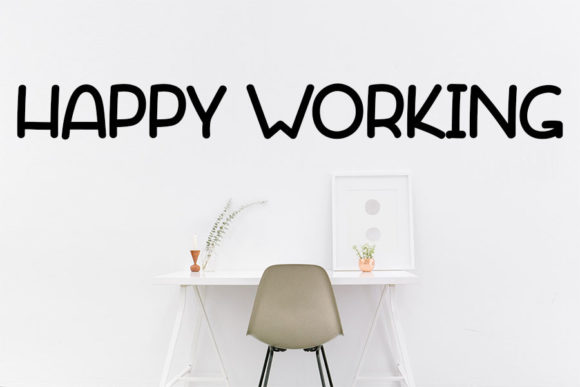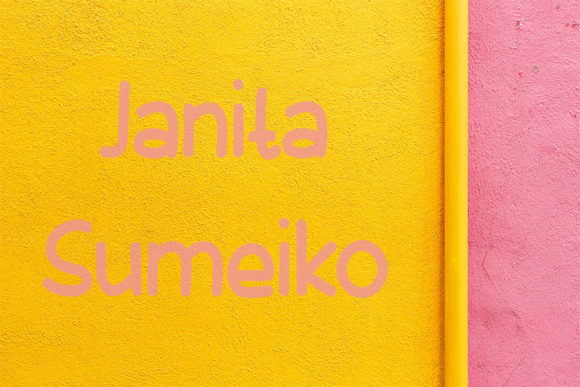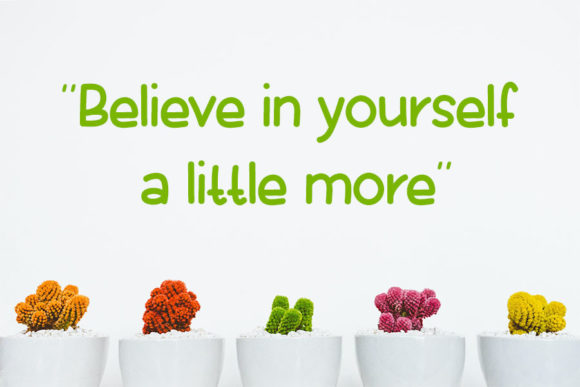
The Perfect Brushstroke for Your Next Design
Have you ever sat in front of a blank canvas, staring at a blank page, and thought, ‘This is the moment when creativity strikes’? The world of design is full of those magical moments, where the right font can make all the difference. For designers, finding the perfect font can be the key to unlocking a new idea, a fresh perspective, or a bold statement.
That’s where the Gestapu Font comes in – a sweet and friendly handwritten font that’s as versatile as it is charming. With its natural and unique style, Gestapu Font is the perfect companion for any design project, from branding to advertising, and everything in between. Its friendly vibe makes it incredibly fitting to a wide range of designs, limited only by your imagination.
Gestapu Font Key Features
- Font Family: Gestapu Font is a sans-serif font family designed for digital use.
- Character Set: Supports a wide range of languages, including Latin, Cyrillic, and Greek scripts.
- Unique Characteristics: Gestapu Font features a clean, modern design with a unique blend of geometric and organic shapes, making it ideal for digital and print applications.
Gestapu Font Review
Gestapu Font is a unique, sans-serif typeface that aims to capture the essence of a 1965 coup in Indonesia. Upon initial inspection, I appreciate its ✨ clean lines and geometric shapes, which give it a modern and minimalist feel. The font’s simplicity makes it a great choice for digital interfaces and minimalist designs.
However, I do have some concerns about the font’s versatility ⚠️. While it excels in certain contexts, its simplicity can also make it feel sterile and lacking in character. Additionally, the font’s limited glyph set may not be suitable for more complex designs or languages that require a wider range of characters.
What I Like:
- ✨ Clean and modern aesthetic
- ✨ Simple and easy to read
- ✨ Great for digital interfaces and minimalist designs
What I Don’t Like:
- ⚠️ Limited glyph set
- ⚠️ May feel sterile or lacking in character
- ⚠️ Not suitable for complex designs or languages with limited character sets
Overall, Gestapu Font is a solid choice for designers looking for a clean and modern sans-serif typeface. However, it’s essential to consider the font’s limitations and potential drawbacks before deciding to use it in your design projects.
The Gestapu Font is suitable for a variety of use cases, including:
- Typography-based designs
- Branding and logos Alternatives to Gestapu Font
Open Sans is a modern sans-serif font designed by Steve Matteson. It is highly legible and works well for body text. Use it for long-form content, such as articles or blog posts. Open Sans is more rounded and friendly compared to Gestapu Font, which is more geometric and sleek.
2. Montserrat
Montserrat is a sans-serif font designed by Julieta Ulanovsky. It is inspired by the street signs of Buenos Aires and has a strong, urban feel. Use it for headings or titles that need to stand out. Montserrat is more condensed and has a stronger x-height compared to Gestapu Font, making it more suitable for headlines.
Lato is a sans-serif font designed by Łukasz Dziedzic. It is highly legible and works well for both body text and headings. Use it for projects that require a clean and modern look. Lato is more rounded and has a softer feel compared to Gestapu Font, making it more suitable for designs that need a friendly touch.